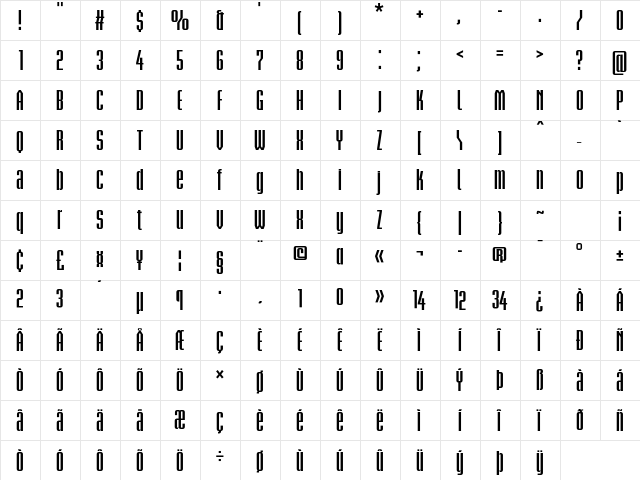
Briem Akademi Std Bold Condensed
| Designer | Gunnlaugur SE Briem |
Design Context for Briem Akademi Std Typeface
Briem Akademi Std offers clean, dependable letterforms without strong stylistic allegiance, making it a practical choice for designers who need flexibility. The heavy weight commands attention and anchors typographic hierarchies. Its narrow stance lets it pack a punch even in space-constrained designs.
Pro Tip: Use Briem Akademi Std in both headline and body roles to test its range before committing to a single application.